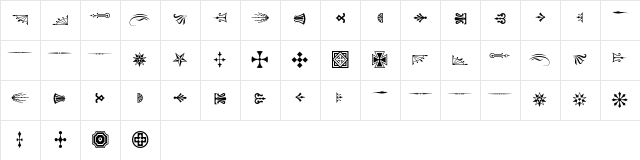
Adobe Wood Type Ornaments One
Design Context for Adobe Wood Type
Adobe Wood Type echoes the hand-painted signage and woodblock typography of the American frontier, with a warm, rugged personality.
Font Pairing: Combine Adobe Wood Type with a simple slab or neutral sans - period-accurate companions reinforce the vintage feel without competing for attention.
Pro Tip: Use Adobe Wood Type for short, impactful bursts of text - it shines in poster headlines and product names rather than extended copy.